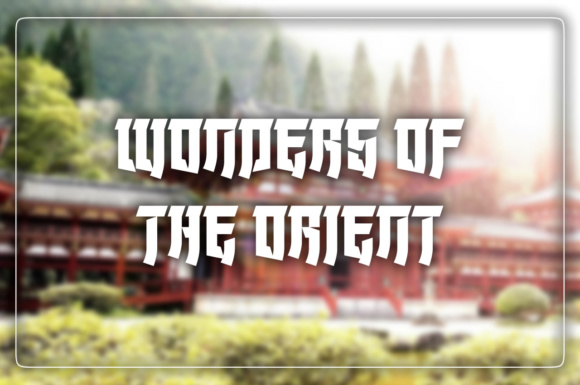
**Immerse your designs in the Enchanting Orient with Wonders of the Orient Font**
Embark on a typographic journey to the exotic East with Wonders of the Orient Font, a captivating display typeface crafted by the visionary Chequered Ink. This extraordinary font grants your designs an aura of ethereal beauty and transports your creations to a realm of enchantment.
As you delve into the character set of Wonders of the Orient, you'll encounter a symphony of organic forms and intricate details that evoke the rich tapestry of Eastern cultures. Each glyph dances upon the page like a graceful brushstroke, inviting you to paint captivating visuals that transcend the ordinary.
Whether you're designing enchanting logos, elegant invitations, or captivating social media graphics, Wonders of the Orient Font empowers you to infuse your creations with a touch of the exotic. Its versatility knows no bounds, allowing you to conjure enchanting visuals that leave a lasting impression.
Indulge in the sensory delights of Wonders of the Orient Font and let your imagination soar. From mystical branding to whimsical website designs, this font unlocks a world of possibilities. Embrace the enchanting allure of the Orient and elevate your designs to new heights of creativity.